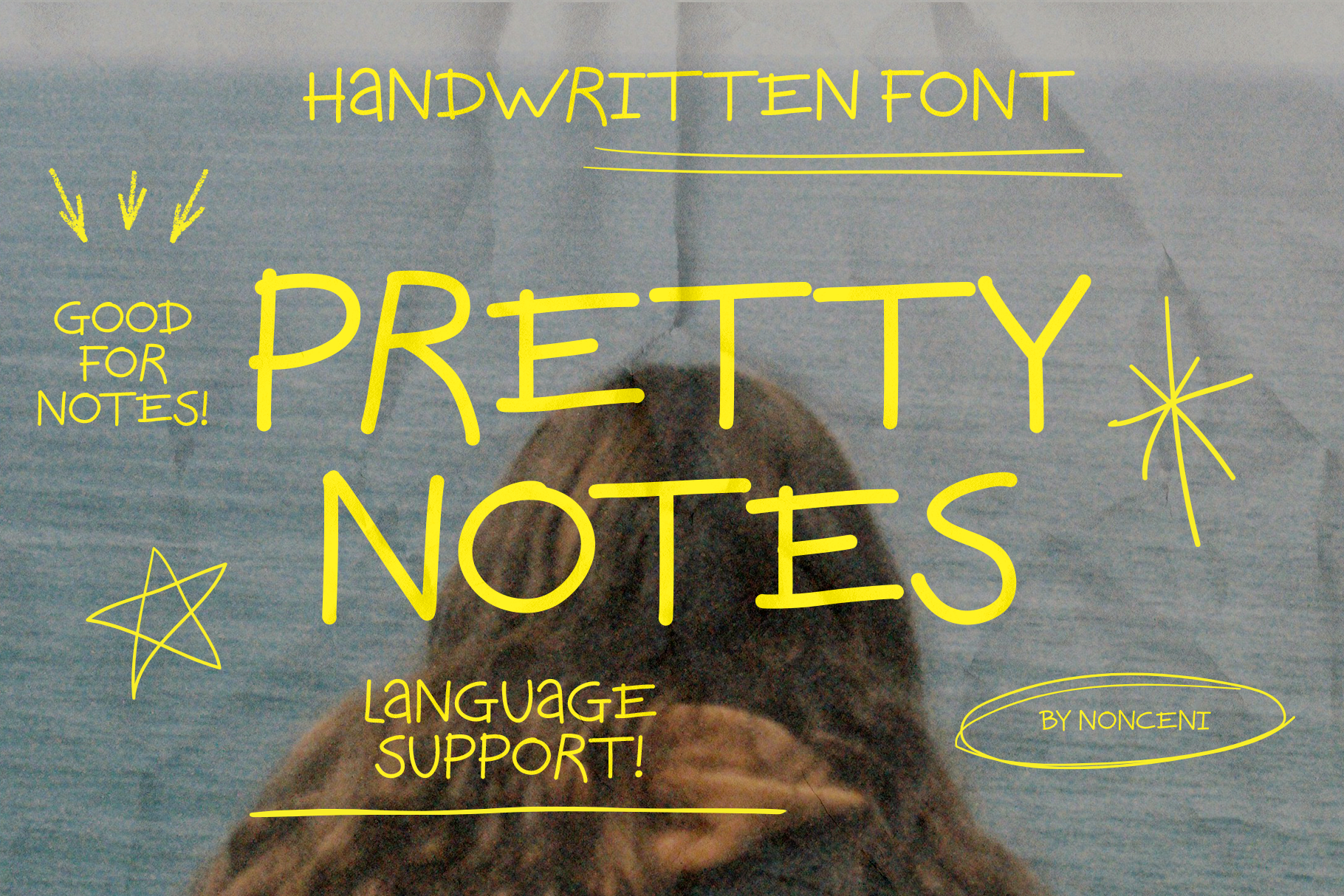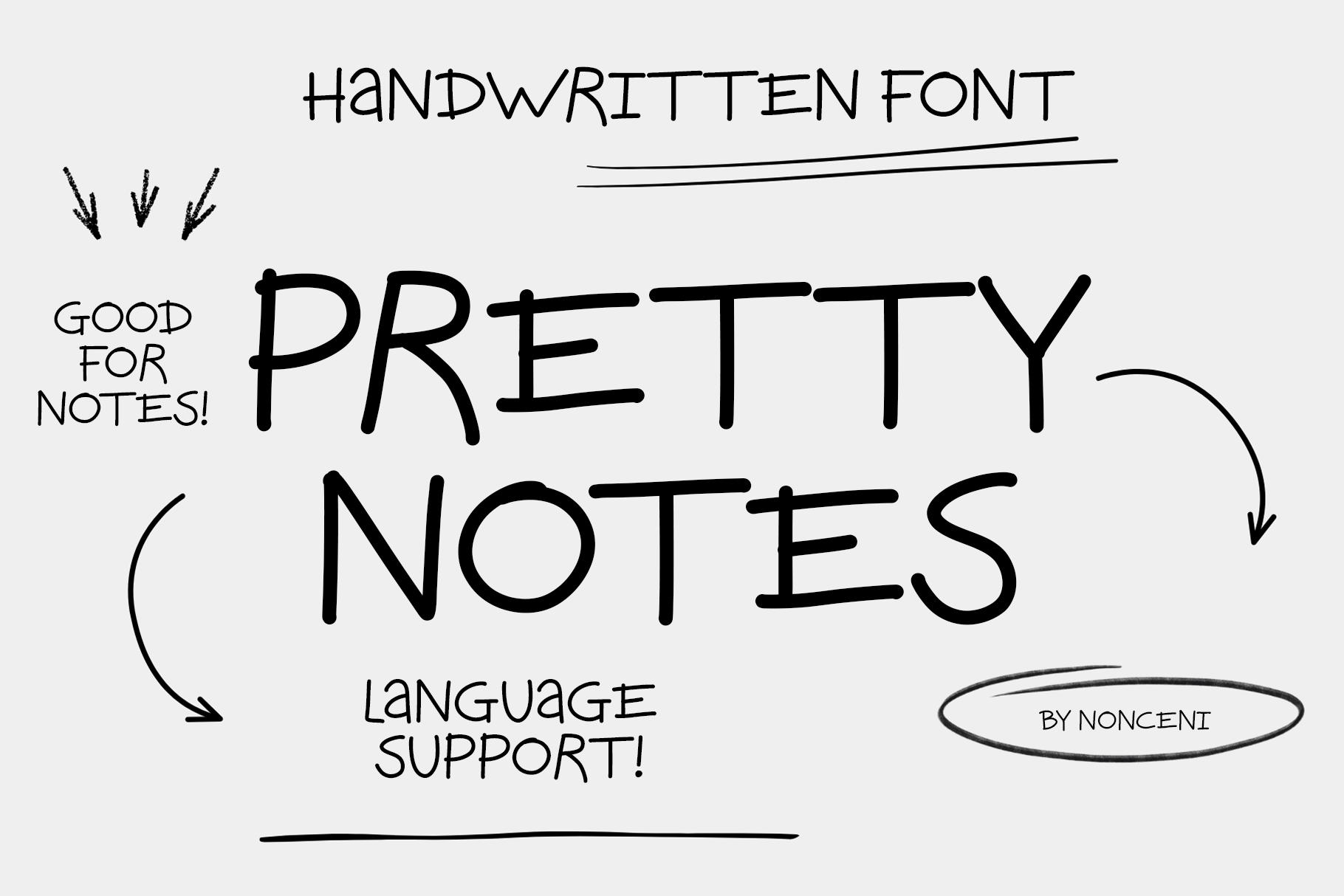
Simple Notes Handwritting Font
Bring a touch of effortless, personal charm to your designs with Pretty Notes. This font is designed to look like authentic quick-jotted handwriting, making it perfect for projects that need a human, relatable feel.
Whether you are creating digital diary entries, social media quotes, or nostalgic layouts, Pretty Notes offers a clean yet playful aesthetic that stays legible while looking completely natural.
Social Media graphics (Instagram Stories, TikTok captions)
Digital journaling and planners
Nostalgic film-style photography overlays
Personalized branding and logo design
Greeting cards and invitations
Add a personal touch to your creative toolkit with Pretty Notes!